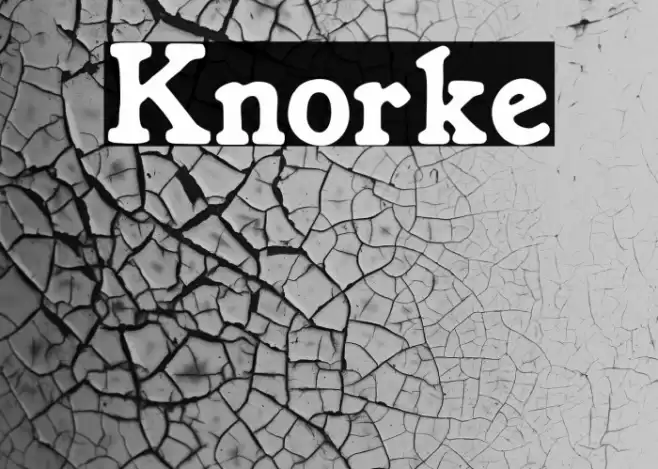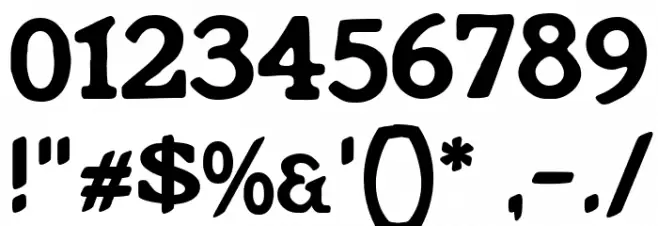
Knorke Font
Knorke Description
This font features a bold and playful design with a strong presence. The characters are thick and rounded, giving them a friendly and approachable feel. The uppercase letters are slightly wider than the lowercase, which adds to the whimsical nature of the font. The numbers and special characters maintain the same boldness, ensuring consistency across all glyphs. The font's style is reminiscent of vintage signage, with a touch of modern flair. It's perfect for projects that require a fun and engaging typeface.
A bold, playful font with a vintage yet modern feel from Uncategorized fonts.
- Proposed Projects: Ideal for children's books, playful branding, posters, and retro-themed designs.
- Overall Style: Vintage, Playful